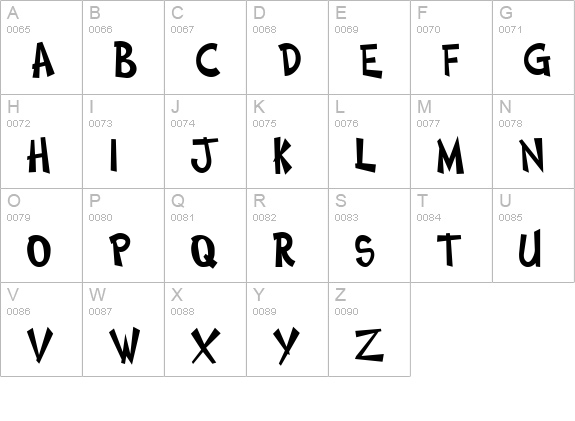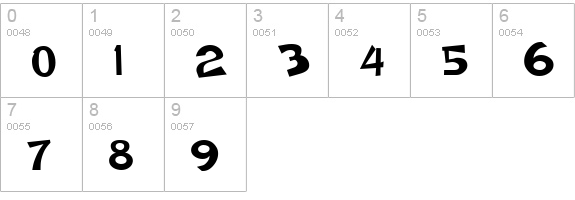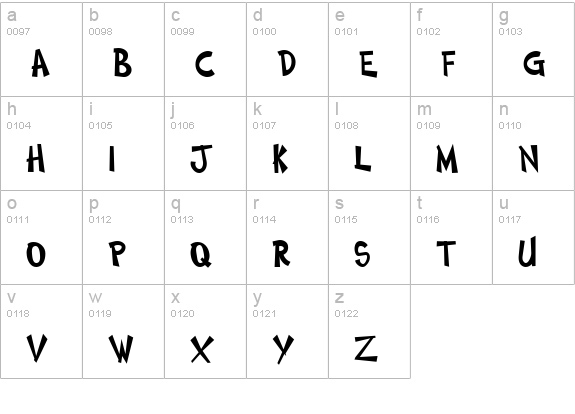
Comic Regular is the standard, neutral variant in the Comic typeface family \xE2\x80\x94 well suited to general body text, paragraphs, and standard typographic work.
Introducing Comic Regular font - a playful and whimsical typeface that brings a touch of fun to any project. With its friendly appearance and comic book-inspired design, this font is perfect for creating eye-catching titles, posters, and more. The rounded edges and bold strokes make it easy to read and perfect for capturing attention. Best of all, Comic Regular font is available for free download at FontsMarket.com. Whether you're working on a school project, designing a flyer, or just looking to add a touch of creativity to your work, this font is a fantastic choice. Don't miss out on the opportunity to enhance your designs with this charming and versatile typeface - download Comic Regular font today and let your creativity shine!